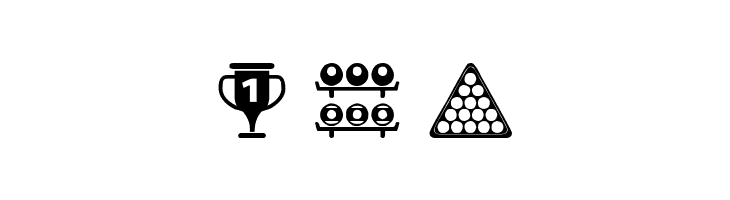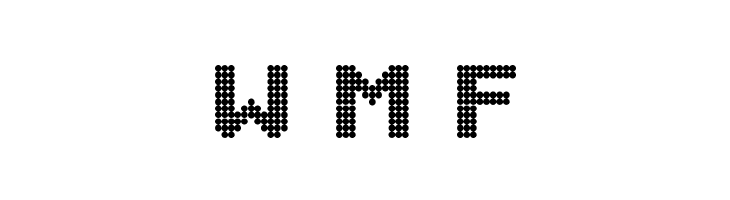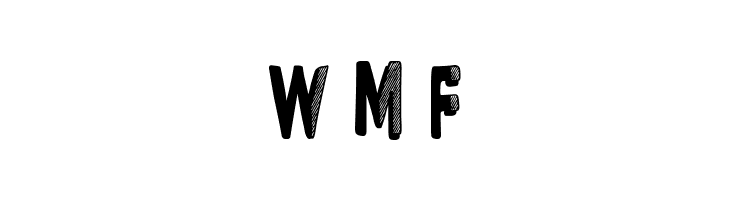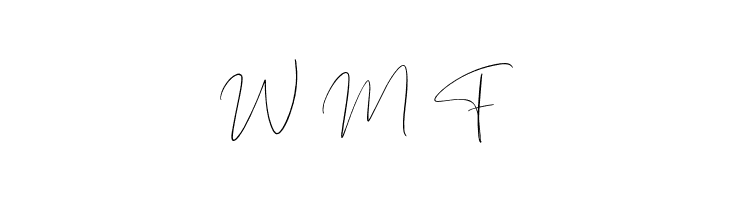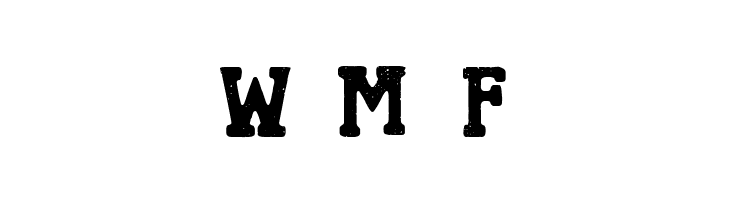
• BIG_GIPSY_BRO
A bold, geometric font with a modern, stencil-like design.
• Bigantha
A playful, handwritten font with rounded, consistent strokes.
• BigBrotherClassizism
A bold, high-contrast serif font with a decorative boxed style.
• BigCaesar-Medium
A bold, hand-drawn font with dynamic, fluid strokes.
• BigCats
A decorative font with stylized big cat illustrations for each character.
• BigDots
A dot matrix style font with a retro-tech appearance.
• BigElla
A bold, blackletter-inspired font with dramatic strokes and ornate details.
• BigMummy
A bold, high-contrast font perfect for impactful headlines and logos.
• BigShadows
A bold, three-dimensional font with deep shadows for a dramatic effect.
• BigShadowsLeftOblique
A bold, 3D shadow font with a left-leaning dynamic style.
• BigSlabHammer
A bold, slab serif font with thick serifs and a strong presence.
• BigSquareDots
A pixelated dot-based font with a uniform and structured design.
• Biker Vamp
Bold, distressed display font with dripping effects.
• Bikers
Cartoonish, bike-themed decorative font with hand-drawn characters.
• Bikers Church
Distressed, bold slab serif with a vintage, rugged look.
• Bilgathes
A casual, playful handwritten font with fluid, dynamic strokes.
• Bill Horisone
A graceful, handwritten font with smooth, flowing strokes.
• Billiard
A pictogram font themed around billiards and pool.
• BillionDreams
A bold, cursive font with smooth, flowing lines and interconnected characters.
• Bilya Signature
A casual, elegant handwritten font with fluid, connected strokes.
• Binoculars
A bold, hand-drawn font with textured diagonal lines.